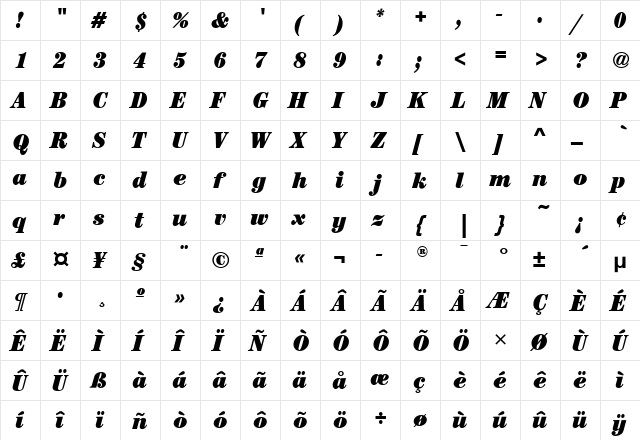
CenturyBookCdITC Ultra Italic
Design Context for CenturyBookCdITC Typeface
CenturyBookCdITC offers clean, dependable letterforms without strong stylistic allegiance, making it a practical choice for designers who need flexibility. Its italic angle brings a sense of urgency and motion to the letterforms.
Pro Tip: Try CenturyBookCdITC for annotation and caption copy alongside an upright companion — the contrast in angle creates a dynamic but ordered typographic system.